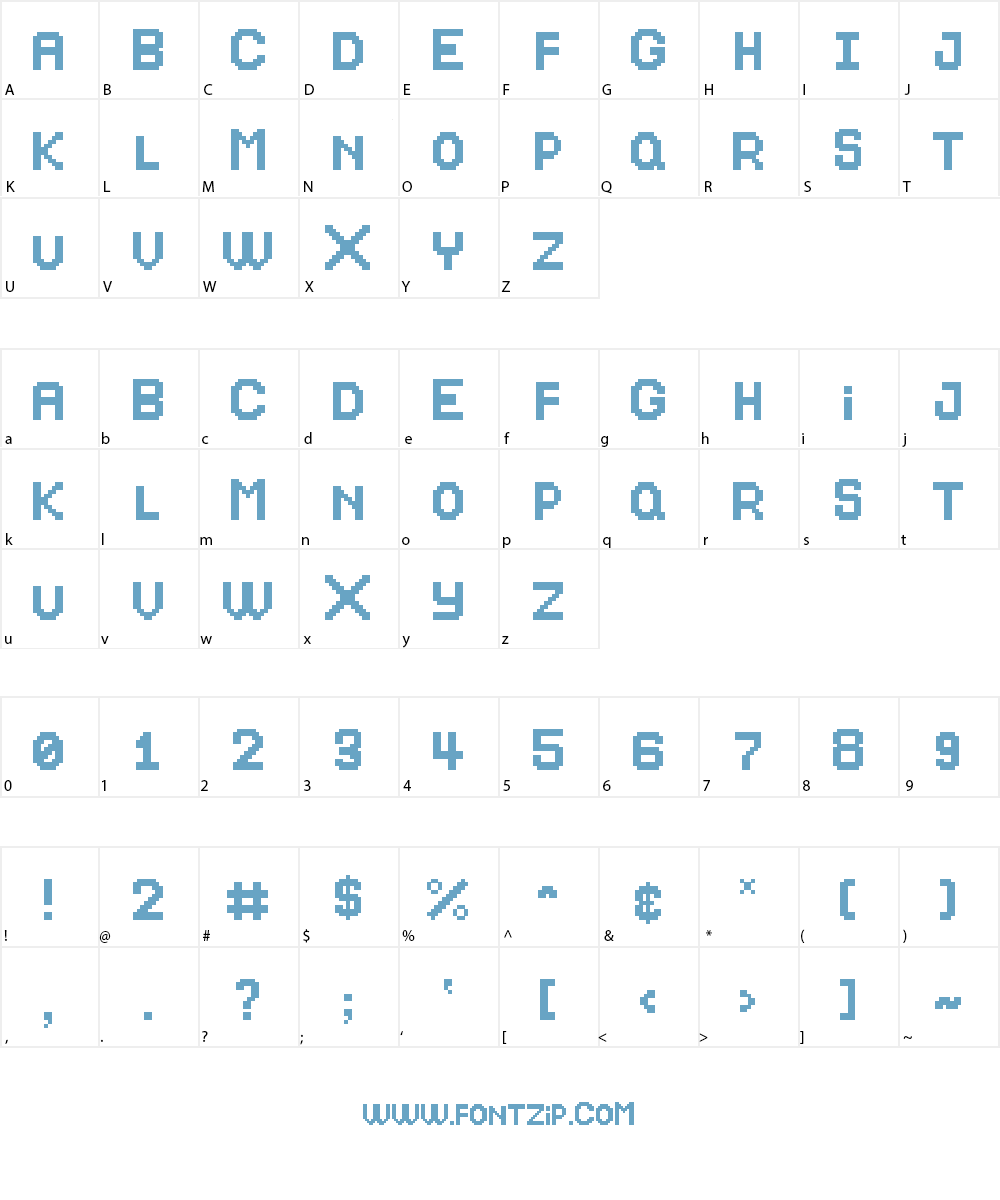
This is a bitmap font where he was a child. On earlier years, he was a student of schools and was a trip to Ocean Adventure, being able to see our beautiful sea animals, beautiful butterflies and a fun dolphin show.
When he was a child, I started playing old school games with my joystick(later, PSP, then finally, my new cellphone!) on your TV, and started watching anime shows on TV5, like Shakugan no Shana, Lucky Star, Ranma 1/2, Azumanga Daioh and Toradora!.